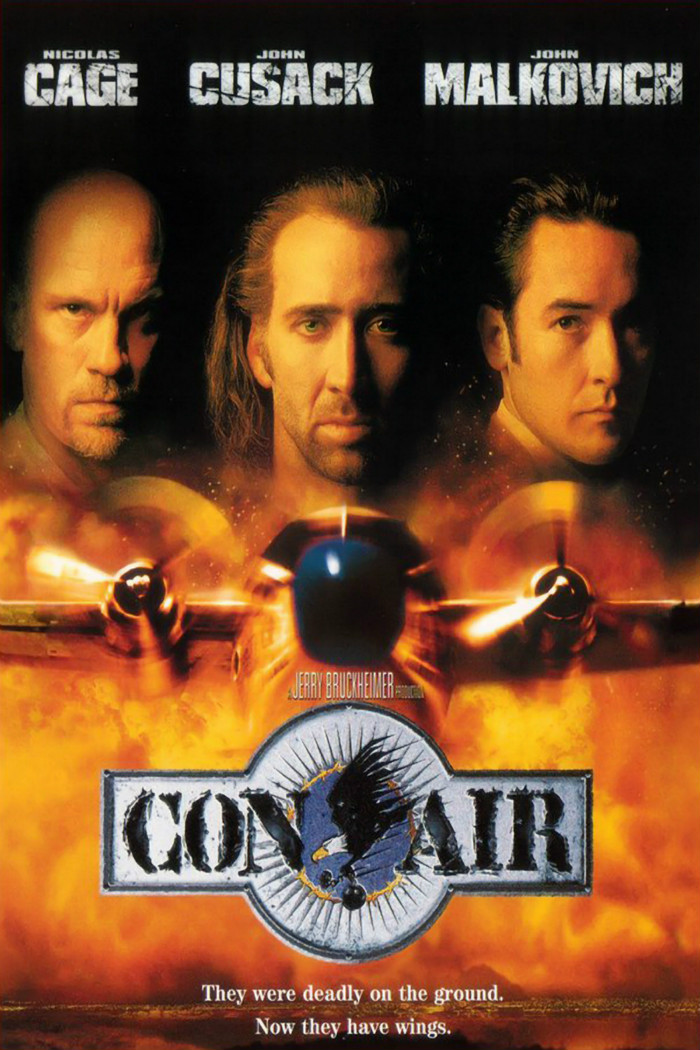
Con Air (film) Font
ActionCon Air is a 1997 American action thriller film directed by Simon West. The film centers on a prison break that takes place on a Justice Prisoner and Alien Transportation System plane known as "Con Air."
The title of the movie Con Air in the poster is possibly Adobe Stencil. Stencil font was created by American industrial designer Gerry Powell in 1937 for American Type Founders. The characters are made to resemble big, cut-out stencil letters.